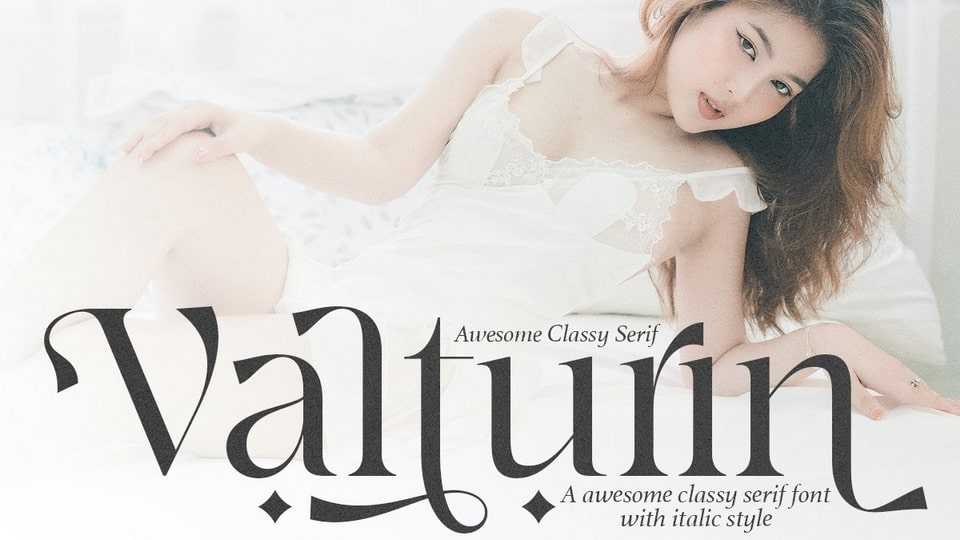
Download Valturin font, a very beautiful serif typeface with a minimalist appearance and a touch of elegance, perfect typeface for any design to make it look luxurious.